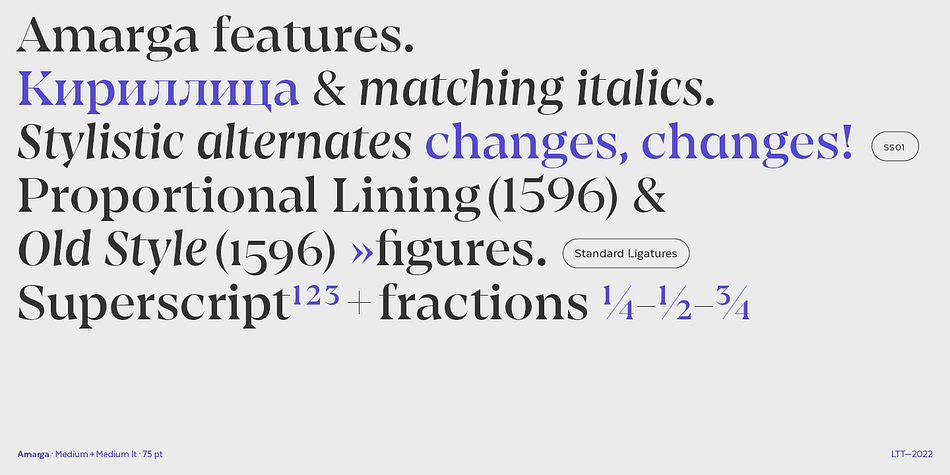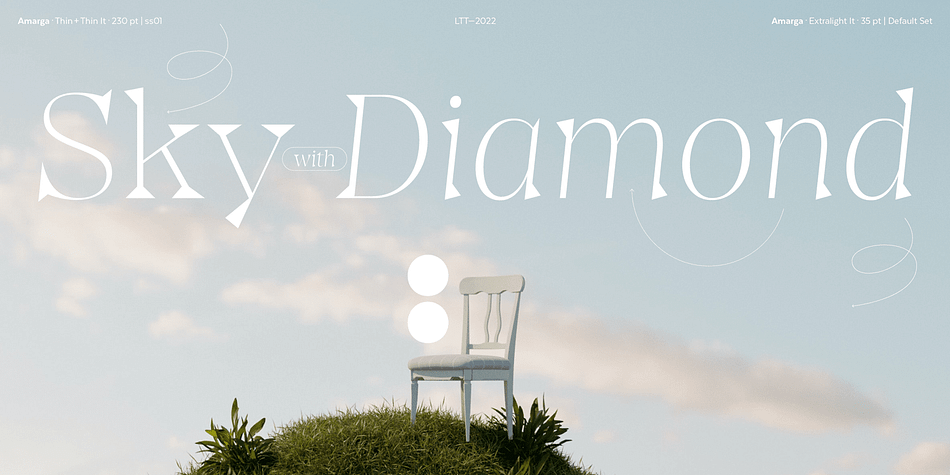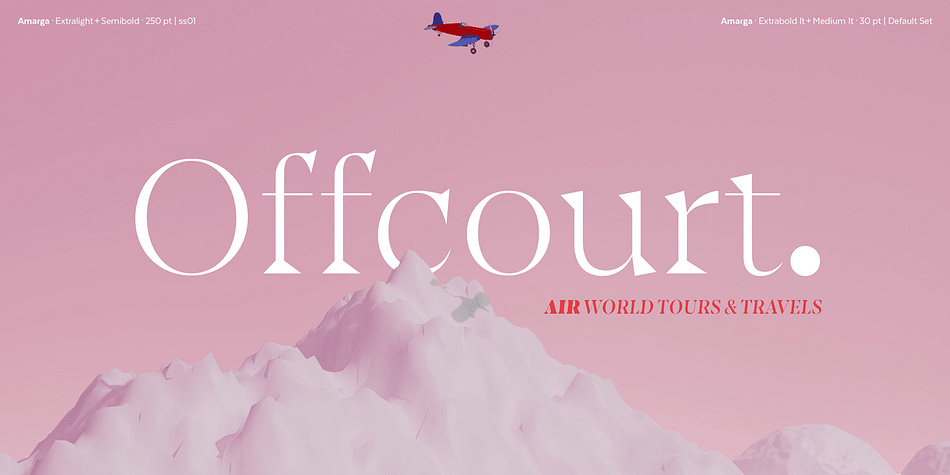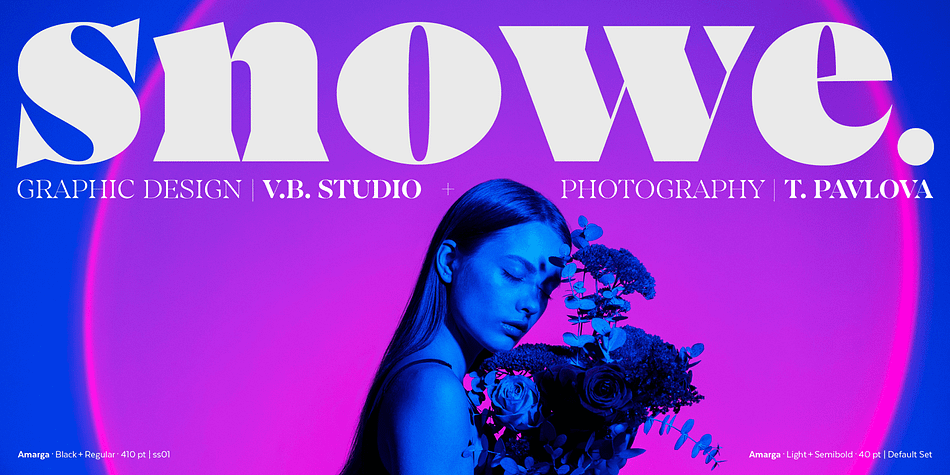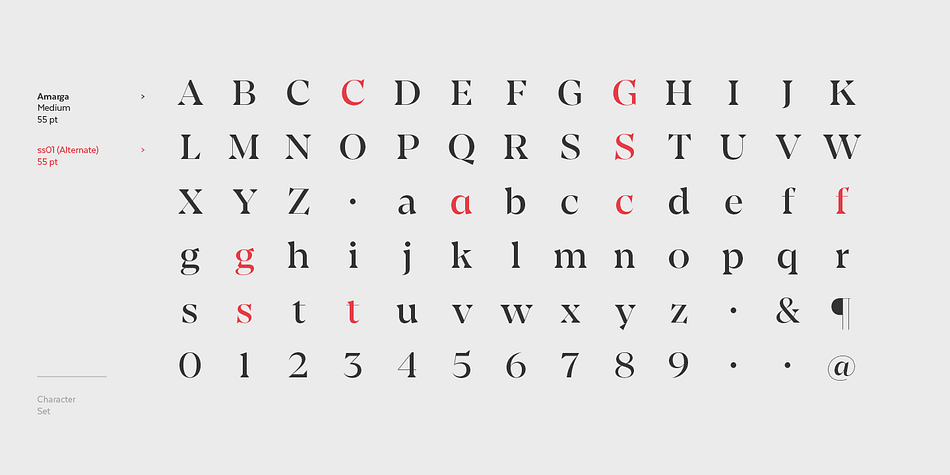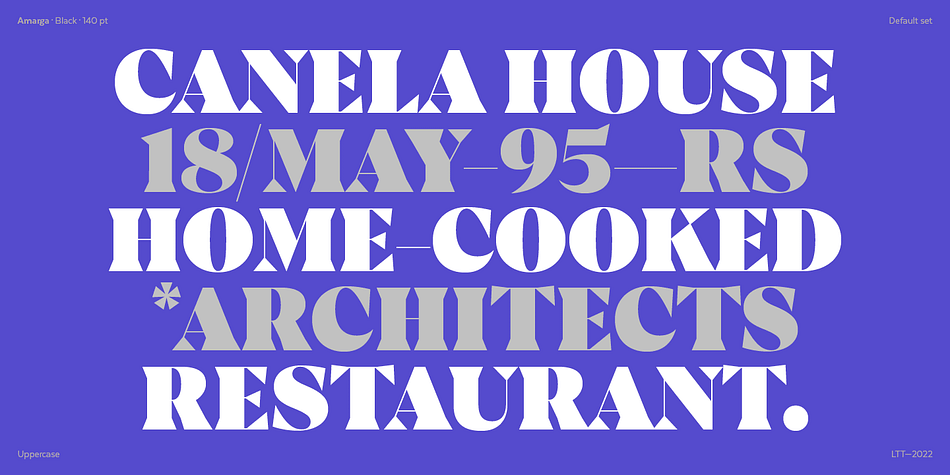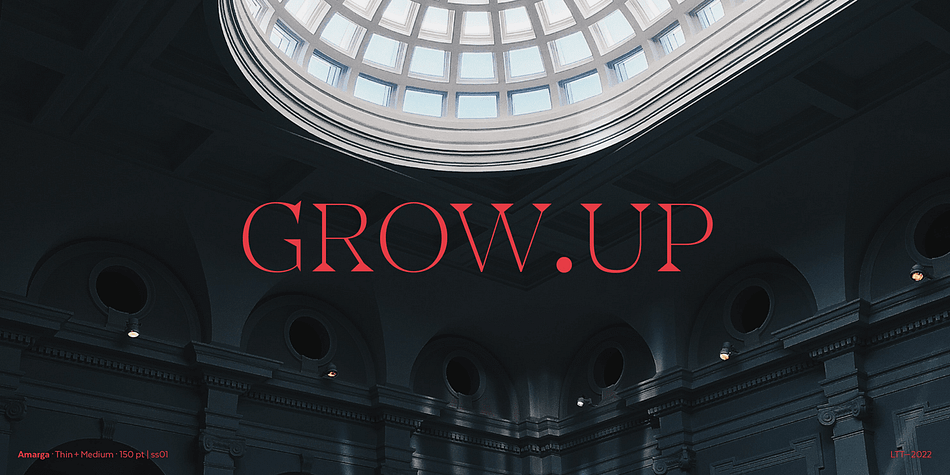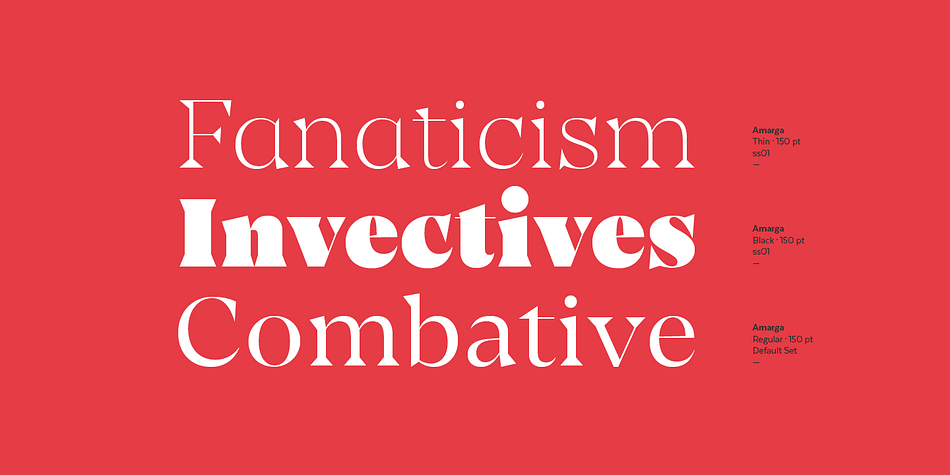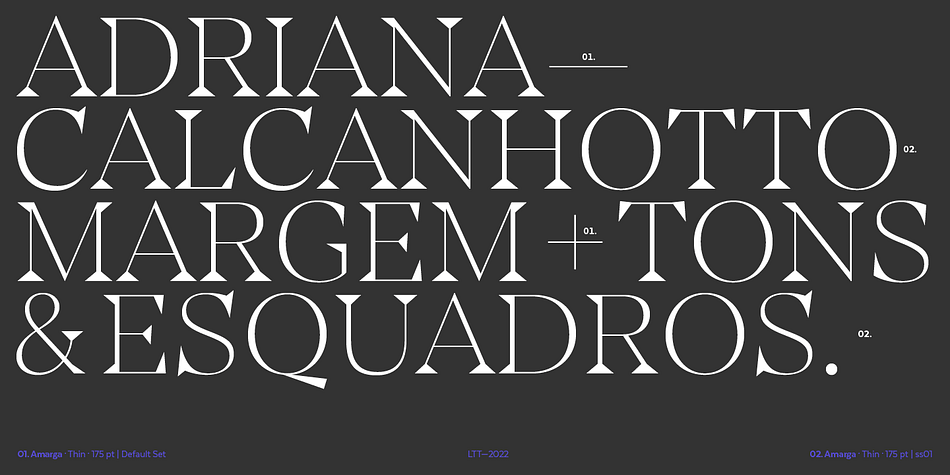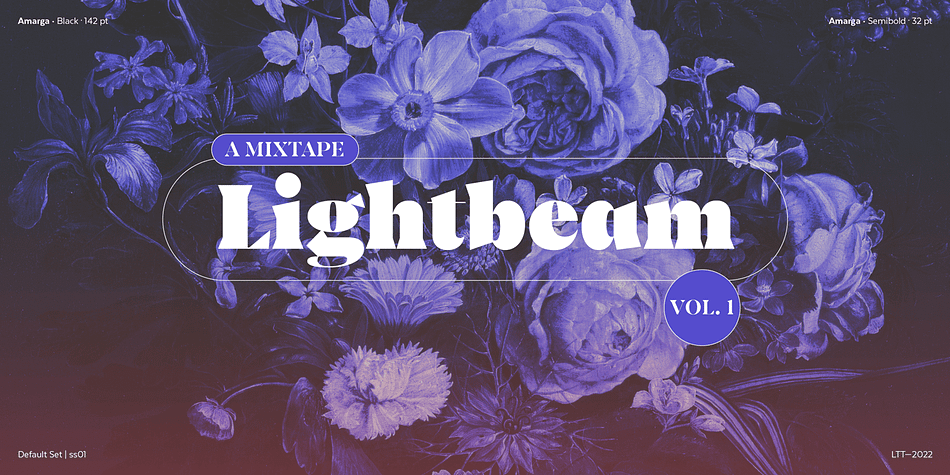
Amarga
Designed by Sofia Mohr, Amarga is a display serif and serif font family. This typeface has eighteen styles and was published by Latinotype.
The inspiration behind Amarga comes from the bitter taste of coffee.
Amarga is a serif typeface with high contrast and pointed terminals, composed of 9 weights that range from a very heavy black version to a thin version plus italics, with a total of 18 fonts.
Amarga has a great visual impact and is perfect for display uses in editorial design, web, branding, posters and many others.